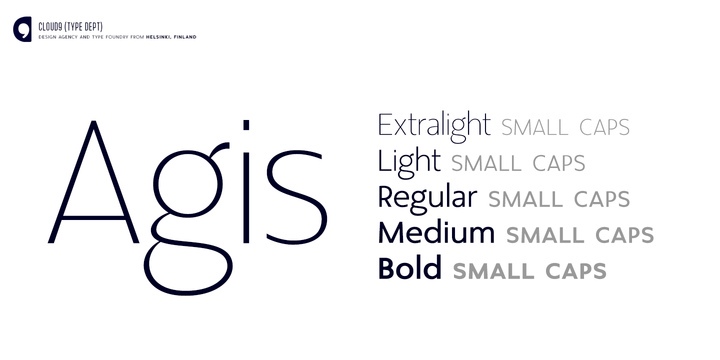
Agis Font
The Agis Font is an excellent choice for a wide range of projects, known for its clean and modern geometric sans-serif design. Its bold and clear letterforms make it perfect for creating strong headlines, brand logos, posters, and web design. This font's straightforward yet stylish appearance ensures excellent readability, even in complex layouts. The Agis Font is particularly well-suited for tech companies, startups, and creative businesses looking to project a confident, forward-thinking image.
What makes the Agis Font so exciting is its blend of clean lines and subtle character. It’s a font that can adapt to many different styles, from minimalist to industrial, without losing its unique personality. Its strong presence gives your design a sense of stability and professionalism, while its modern aesthetic keeps it fresh and relevant. The Agis Font is a versatile tool that can serve as the backbone of a comprehensive brand identity, ensuring a consistent and polished look across all your materials.
The Agis font family is designed to be highly versatile. It includes a variety of weights, giving you the flexibility to create strong visual hierarchies and dynamic layouts. This comprehensive family provides a full set of uppercase and lowercase letters, numbers, and punctuation, ensuring you have all the tools you need to create a complete and professional design. The font is available in multiple formats, making it easy to use with all your favorite design software.